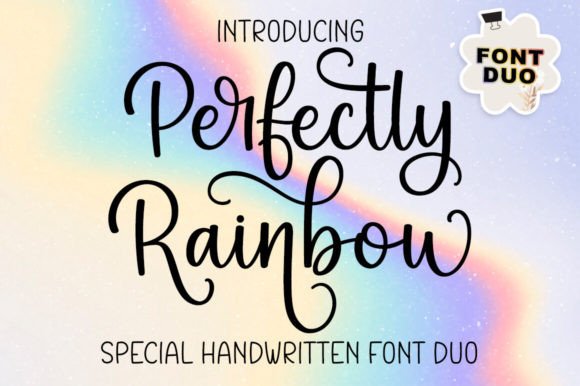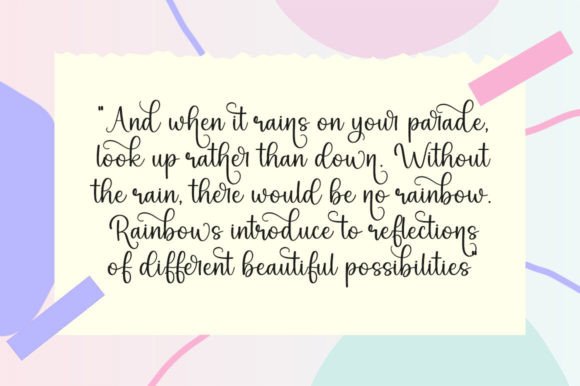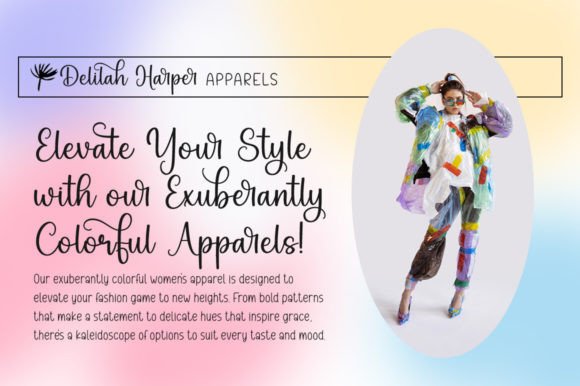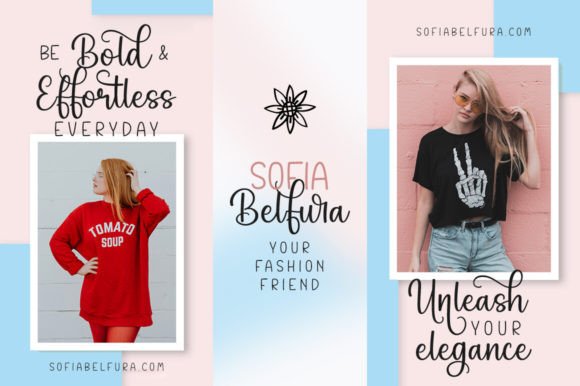
Perfectly Rainbow Font
About the Perfectly Rainbow Font
Add a touch of class to your work with the Perfectly Rainbow Font, a truly exceptional typeface. Perfectly Rainbow consists of two fonts designed to complement each other perfectly. Together or apart, these fonts are ideal for adding a chic and cheery touch to your crafts. This font is PUA encoded which means you can access all glyphs and swashes with ease!
Perfectly Rainbow’s playful, yet sophisticated style shines in headlines, logos, short-form content, and packaging design where its unique swashes add a touch of whimsy. It’s particularly effective for projects targeting a young, modern audience or brands with a cheerful and approachable identity. Avoid using it for large blocks of body text or UI elements; its decorative nature can hinder readability in extended use.
Consider pairing Perfectly Rainbow with a clean sans-serif like Open Sans for a balanced contrast, or a classic serif such as Merriweather for a more traditional yet equally harmonious effect. For a bolder statement, a geometric sans-serif like Montserrat could create a striking juxtaposition. Script fonts should be avoided as they may overpower the font’s distinct personality.
The overall personality is best described as cheerful and modern; it evokes a sense of fun and vibrancy without sacrificing sophistication. Its versatility makes it a strong asset for projects needing a touch of joyful elegance.
Perfectly Rainbow Font Usage Examples
Perfectly Rainbow Font Example